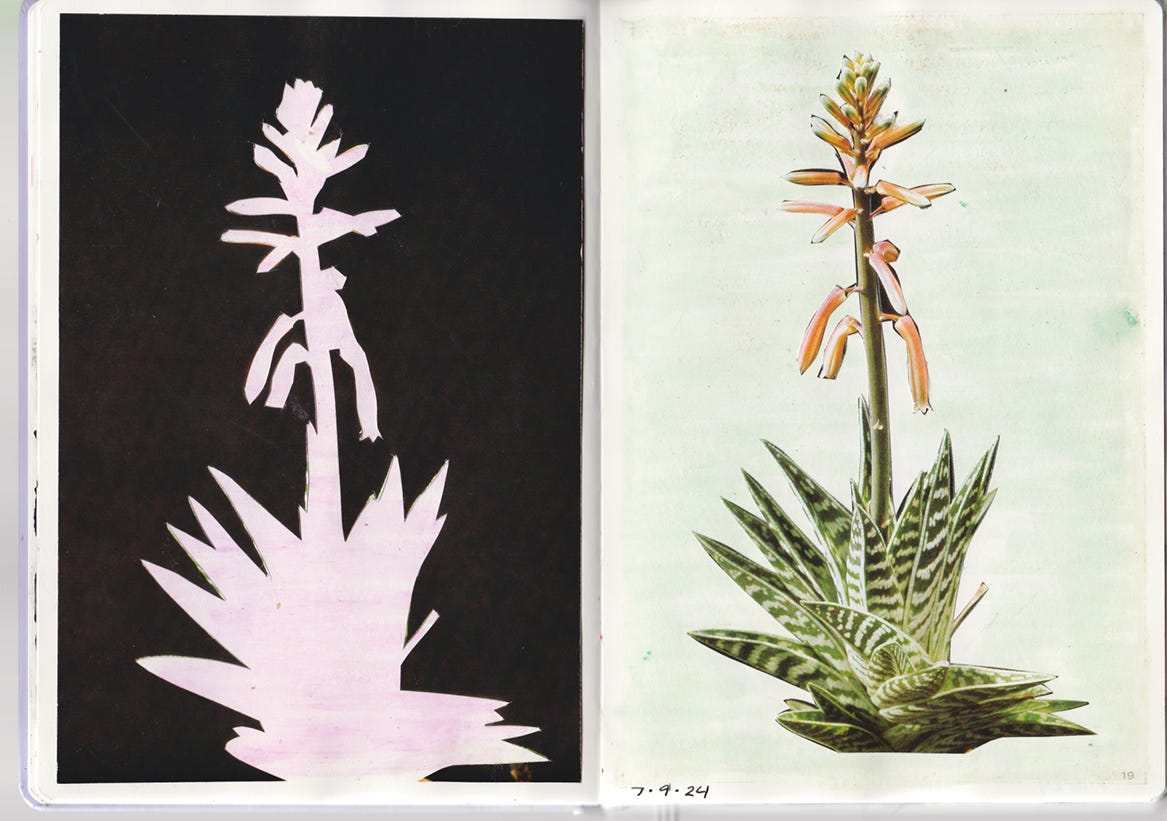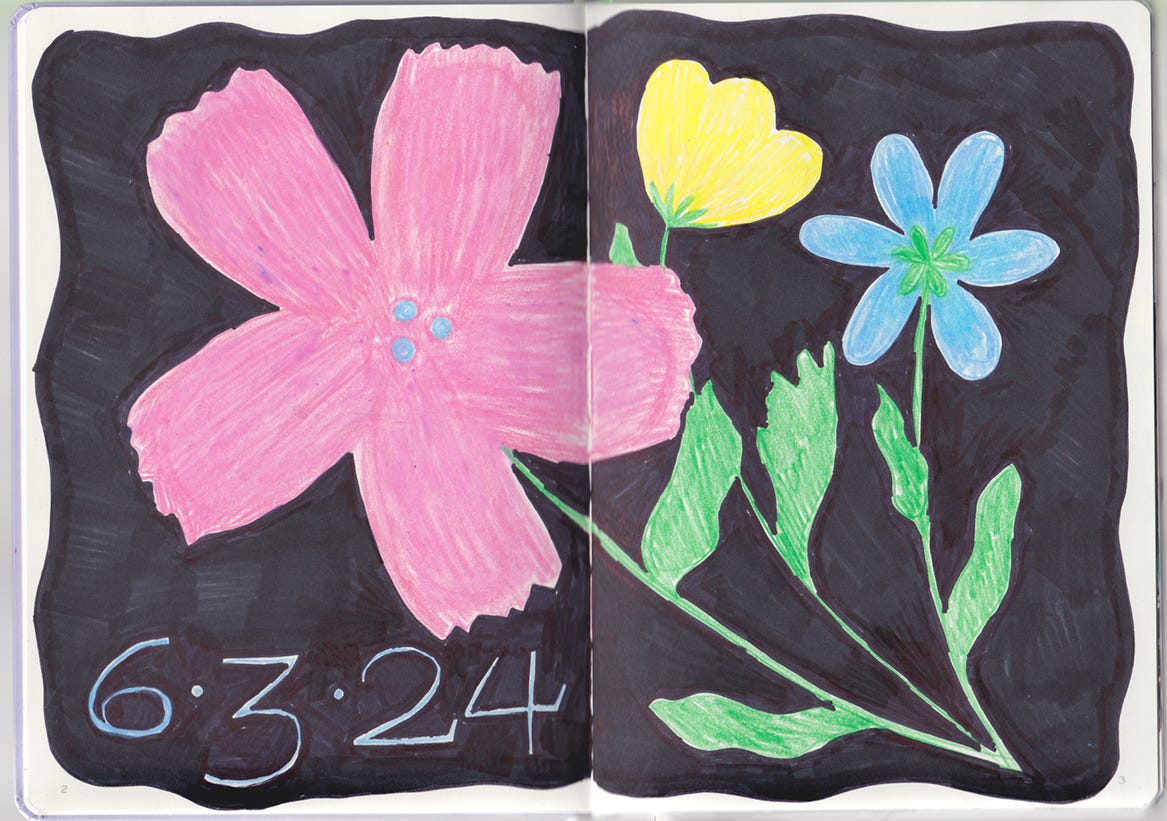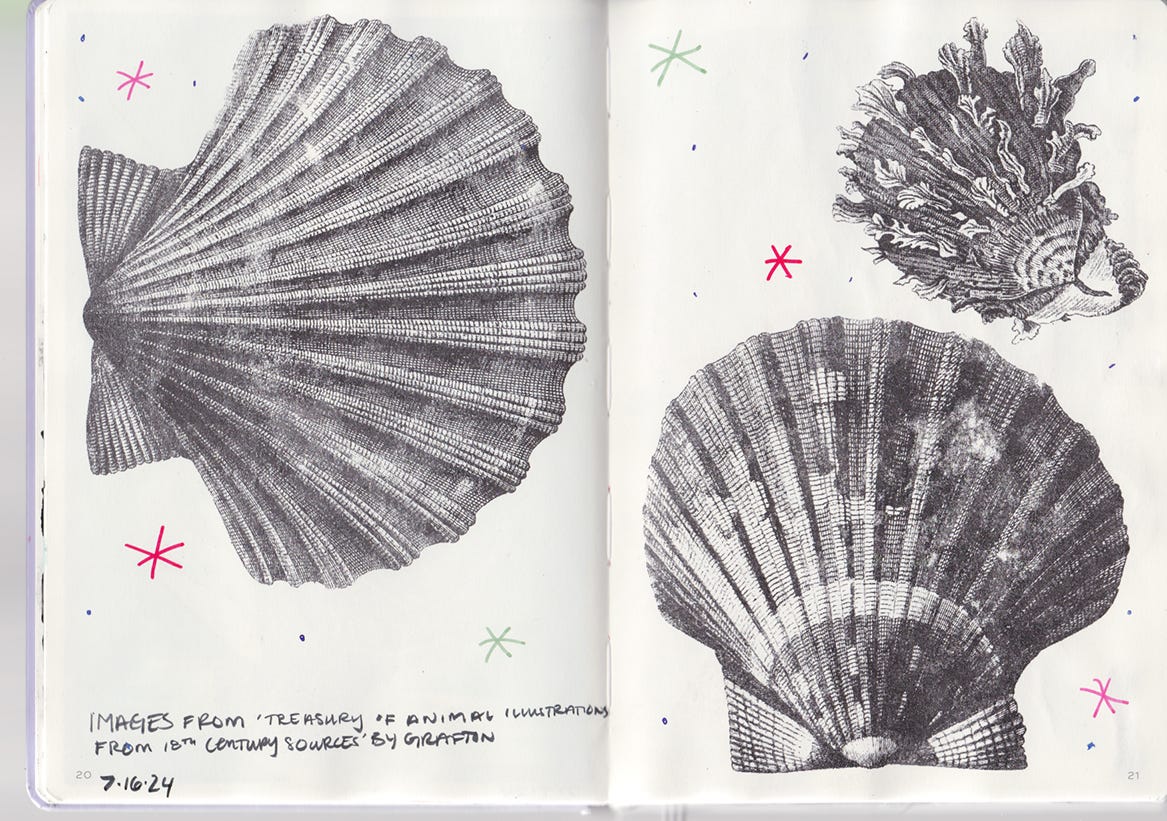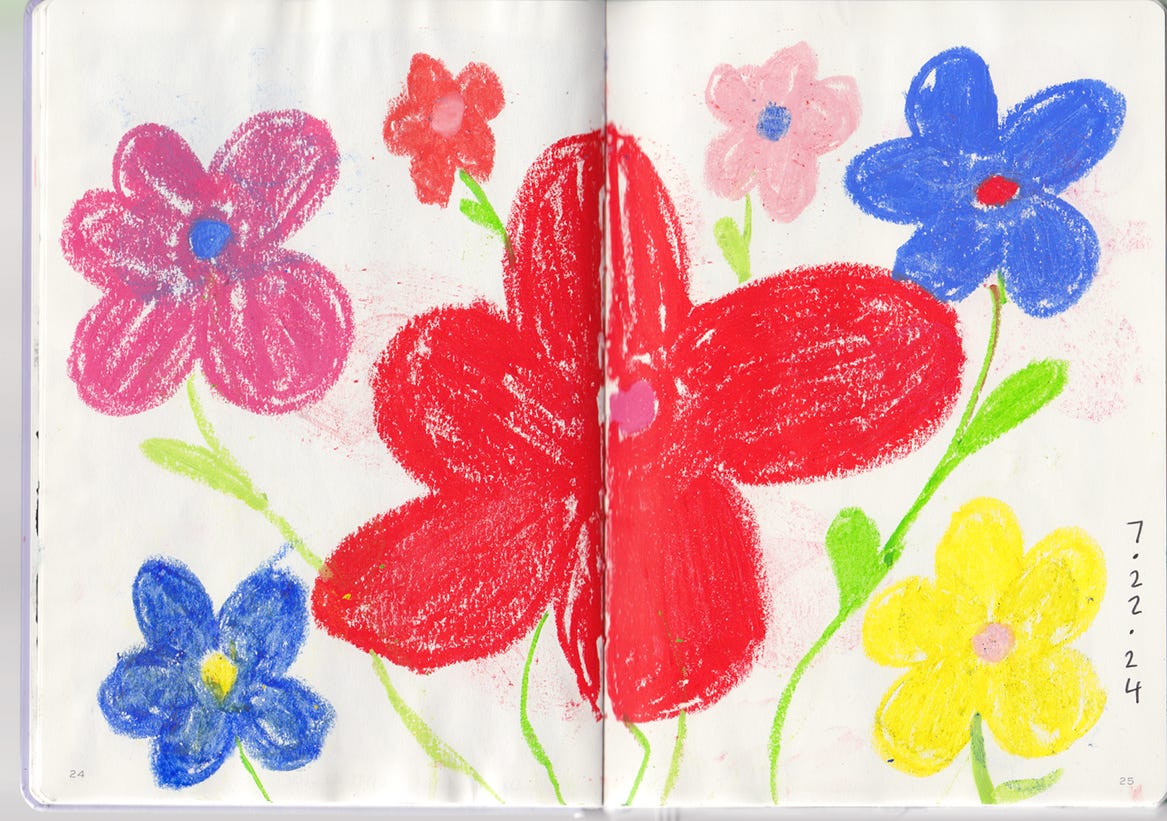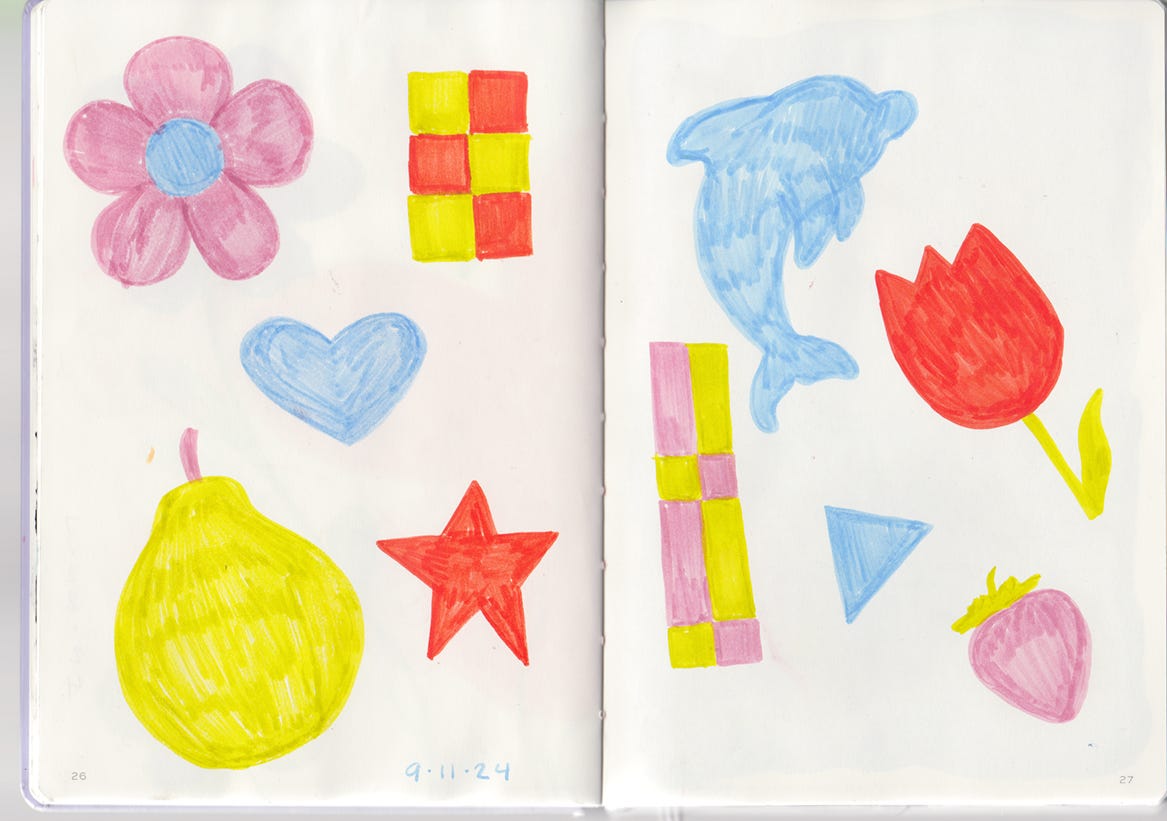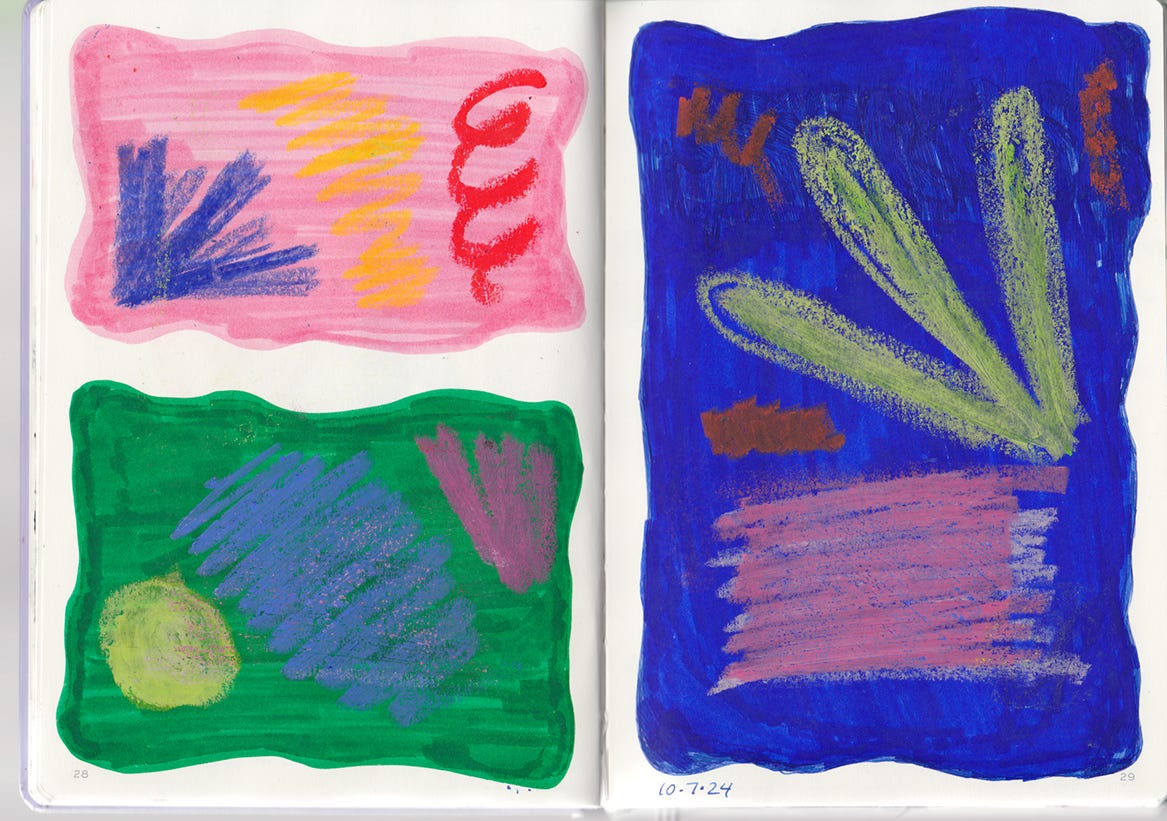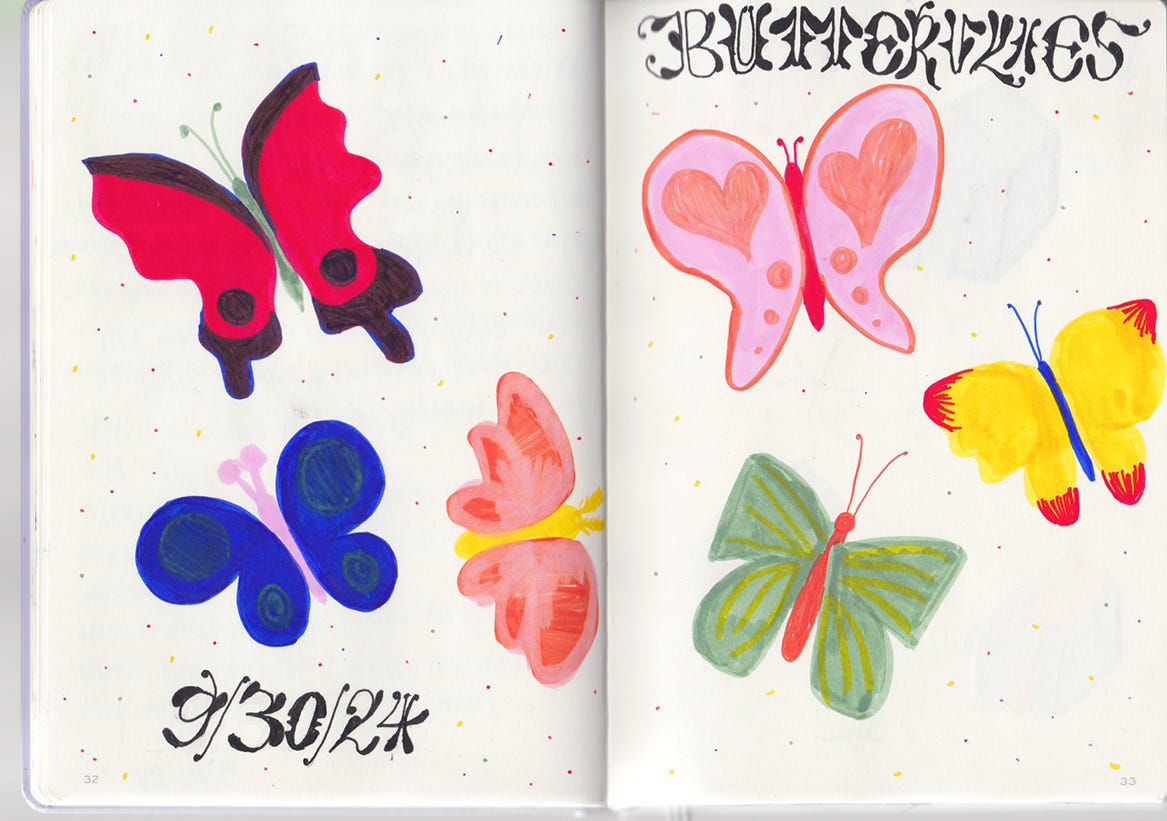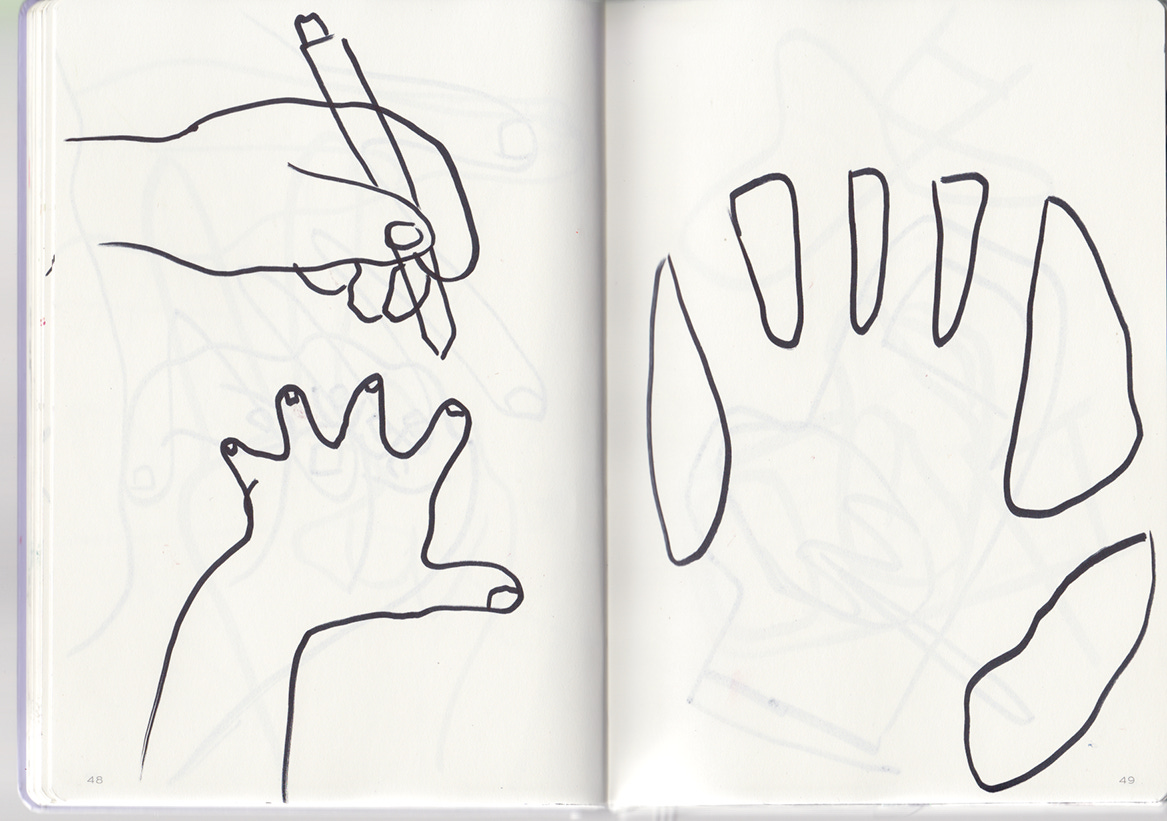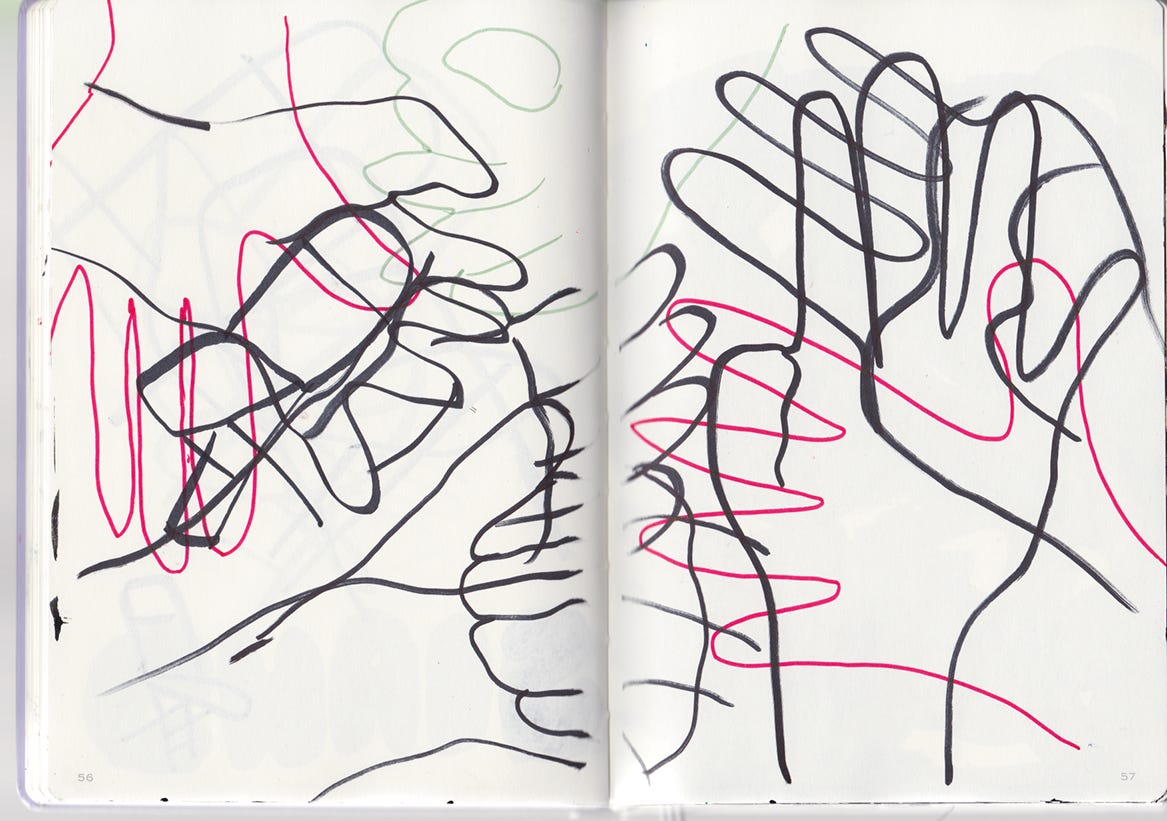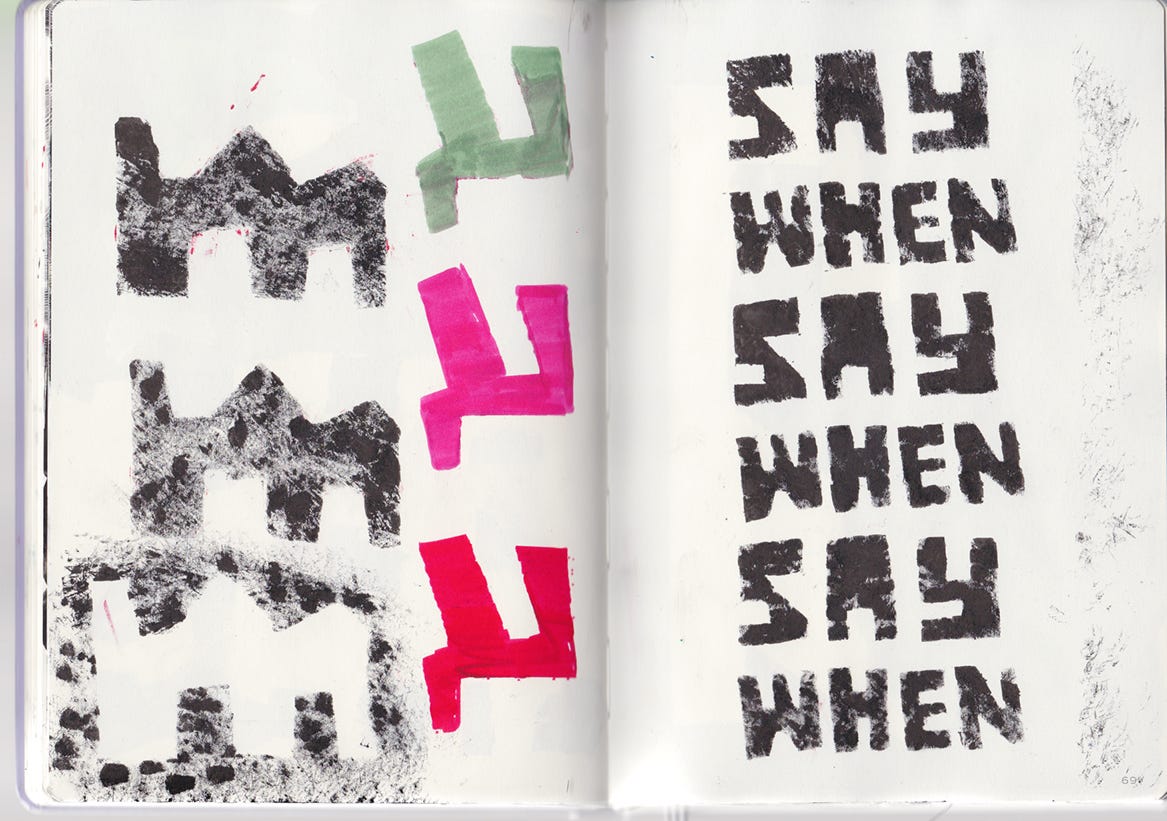
Part One Of My Sketchbook
How are you (my favorite people) doing?? Are we all taking life second by second? Because that’s definitely where I’m at! The US economy is crumbling but yet I am still here with my dumb letters like what else am I going to do??
Fortunately for us, today’s email is not about anything big or scary but actually something quite small, and hopefully nice to look at!
Last week, I asked my friends and colleagues to share their sketches with us so we can all aspire to be as good as them! However, I did get a few messages asking to see my sketchbook as well, and I am nothing if not a people pleaser!!
So here it is! The good, the meh, and the kinda clunky. It still has a long way to go but it’s good to show progress. It feels more honest!
Recently, I made it to the halfway point in my sketchbook which felt like a very serendipitous time to share it! This way, in the future, I can follow up with the second half.
My process with sketching is very ~feelings and vibes~ based! I don’t put pressure on myself to draw letters or truly anything specific. I try to start each workday by doing a spread. It feels good to have a small part of my day exist outside of the computer! I am not always good at doing it regularly but the point is for it to feel good, not like a chore.
You’ll notice that I like to use lots of color, draw flowers, and make collages. These are the things that feel natural for me and I usually do them on days when I want to make something easy. Other days, I might draw something more challenging — like a spread of lettering or maybe a scene in nature. There are no rules! It’s just for fun! That’s the vibe.
Here’s 44 whole spreads of my sketchbook — enjoy! And if you think it’s the ugliest thing you’ve ever seen, please don’t tell me!
The next 11 spreads are from Cyrus Highsmith’s drawing workshop at Letrástica last fall. If you ever get the chance to take one of his workshops, I highly recommend it!